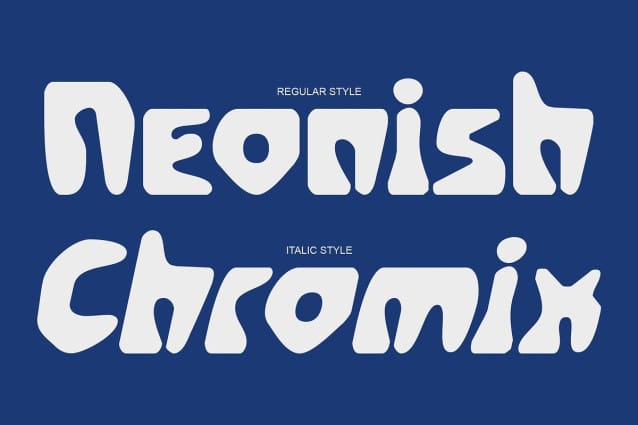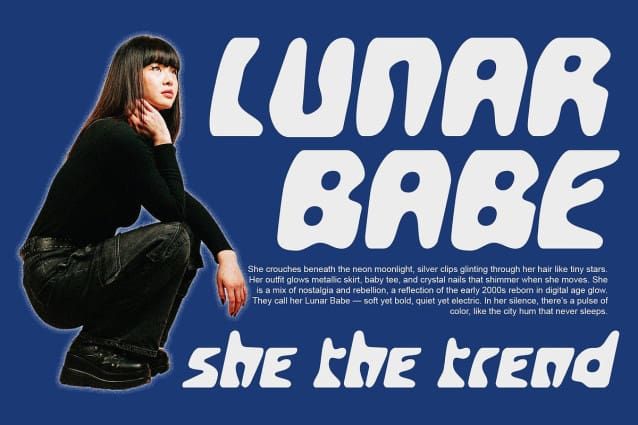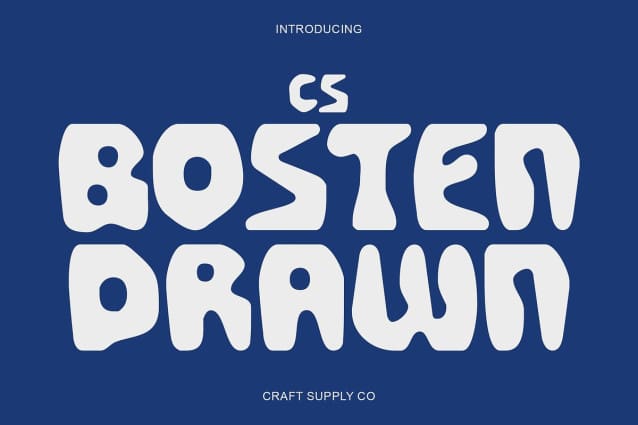
CS Bosten Drawn Font
CS Bosten Drawn Font – This is a bold display experimental font that pushes creative boundaries. Featuring sharp edges, unconventional geometry, and subtle cyberpunk aesthetics, it captures a futuristic yet stylish energy. Each letter is designed to stand out, giving your typography a distinctly modern and expressive attitude.
Hand-Drawn Texture for Relaxed Style The drawn effect adds an organic and laid-back touch, softening the font’s bold geometry and creating a unique visual rhythm. This handmade detail gives this font a sense of authenticity and creativity, perfectly balancing its edgy structure with a more casual, human feel.
Modern Aesthetic with Y2K Vibe Blending futuristic precision with nostalgic Y2K flair, this font embodies both innovation and style. Its experimental look makes it ideal for projects that want to feel fresh, dynamic, and ahead of their time while still carrying a touch of retro charm.
Perfect for Editorial, Posters, and Graphic Design This font shines in editorial layouts, modern posters, and graphic design projects that aim to capture attention. Its bold form, artistic texture, and cyber-inspired geometry make it the perfect choice for designers who want to merge technology, creativity, and individuality in one striking typeface.